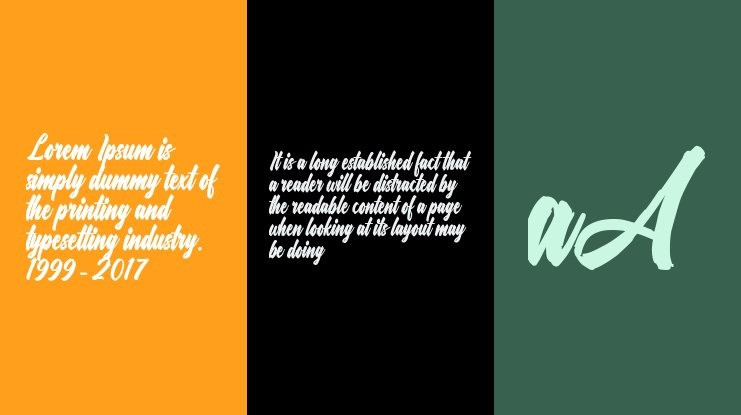
Attractive Blockhead Brush Font, It would be a perfect choice to design posters, affiches, logos, t-shirt and magazine prints, eye-pleasing typographic designs and more.
| Designer Name: | Octotype | Thomas Boucherie |
| Classification: | Brush Fonts, Script Fonts |